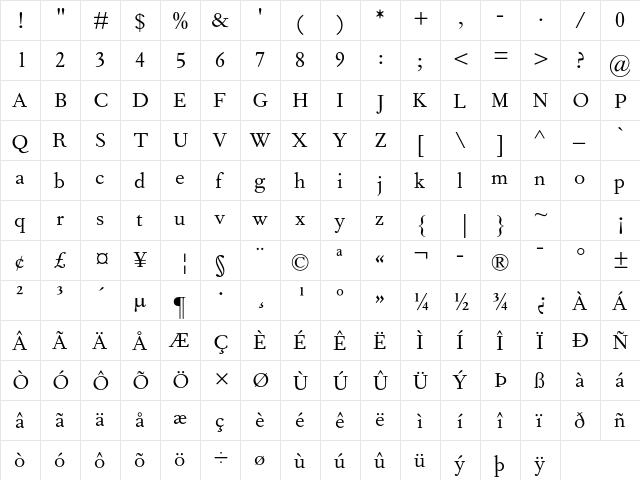
Fournier MT Std Regular
| Designer | Pierre Simon Fournier |
Design Context for Fournier MT Std Typeface
Fournier MT Std takes a measured approach to typography — its balanced proportions and neutral character make it a reliable workhorse for both digital and print work.